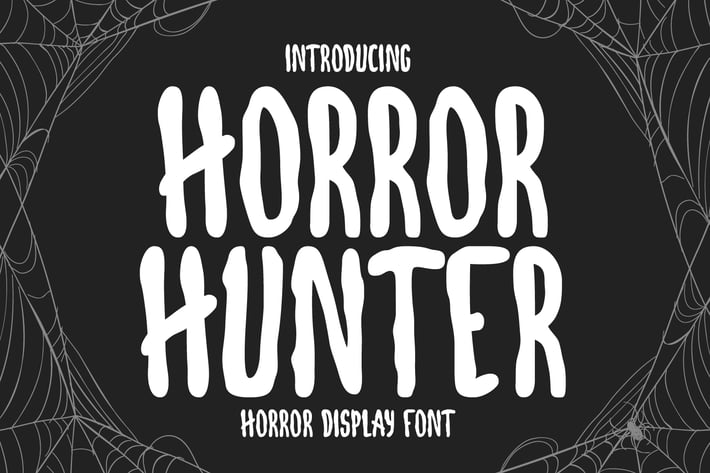
Horror Hunter - Handwritten Display Font
Introducing Horror Hunter - Handwritten Display Font
Horror Hunter is a thick-lettered and spooky display font. It is perfectly suitable for any Halloween-related project or crafty idea! The only limit is your imagination.